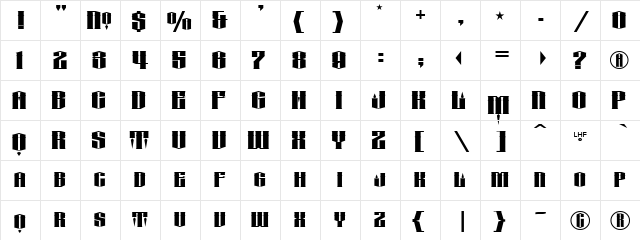
LHF Conclave SHARP wide Regular
Design Context for LHF Conclave SHARP wide Typeface
LHF Conclave SHARP wide is a composed and adaptable typeface that performs quietly and consistently across a wide range of design contexts.